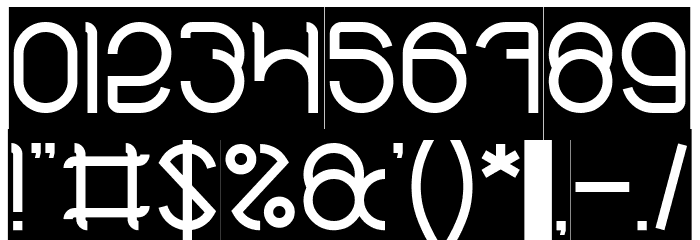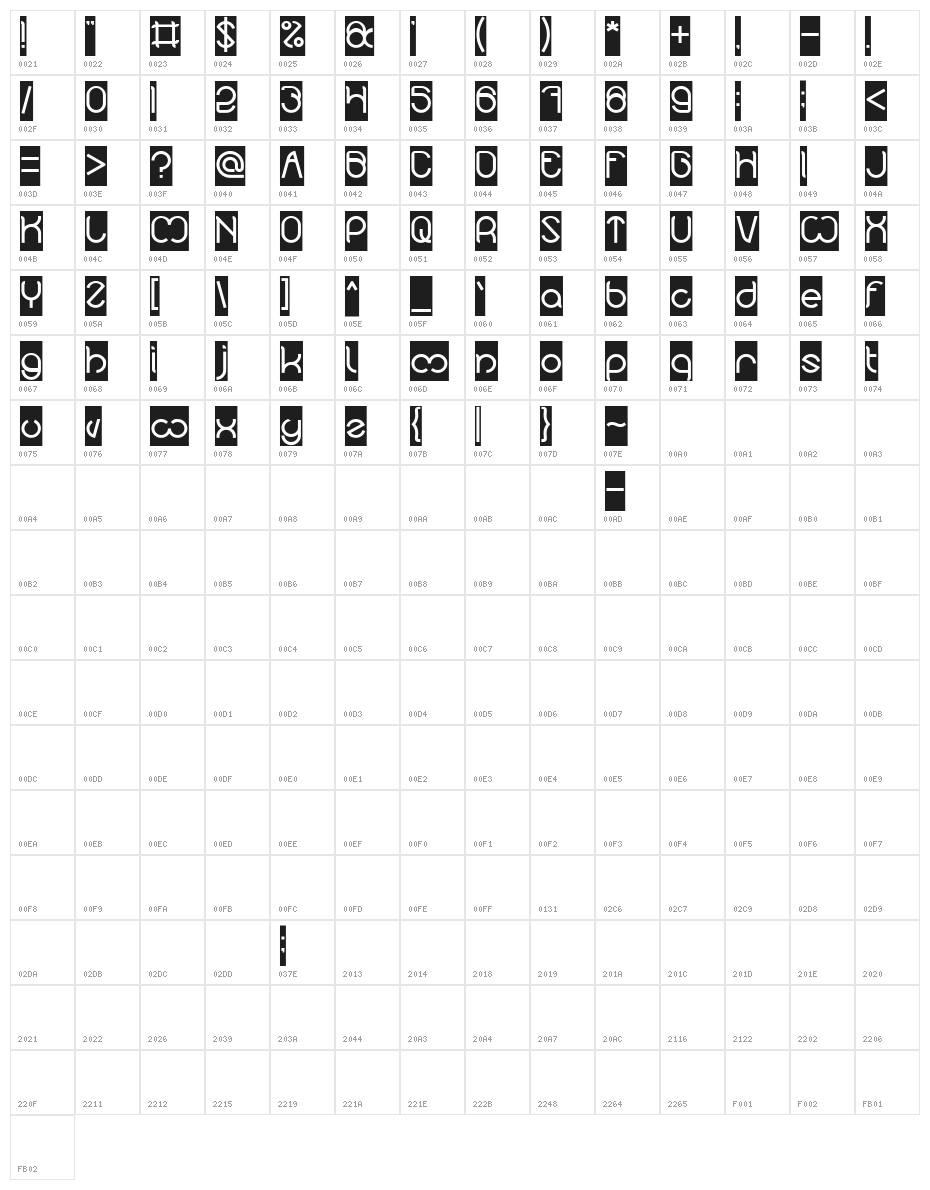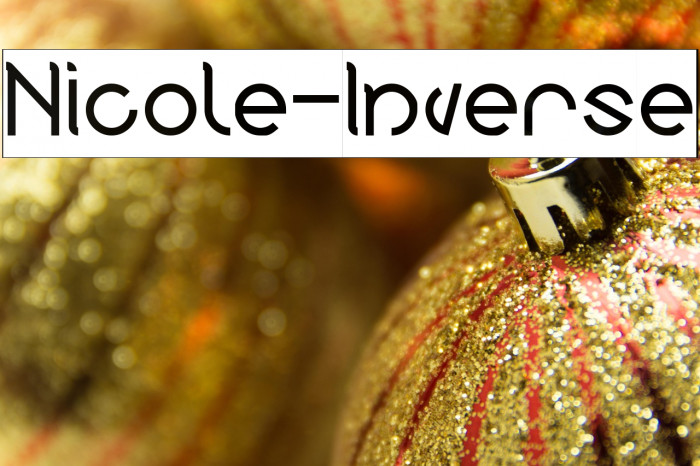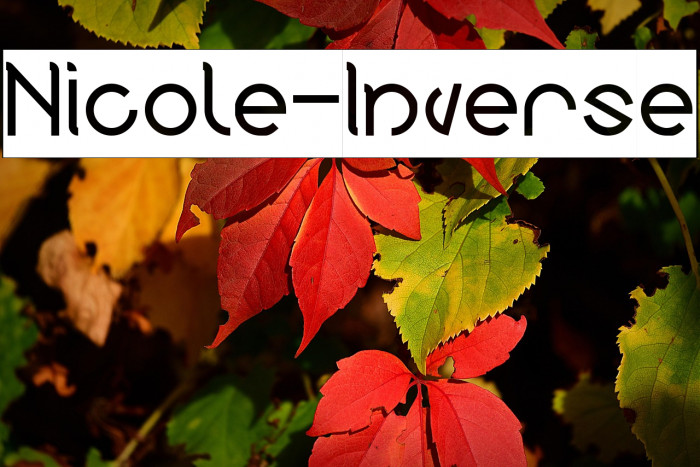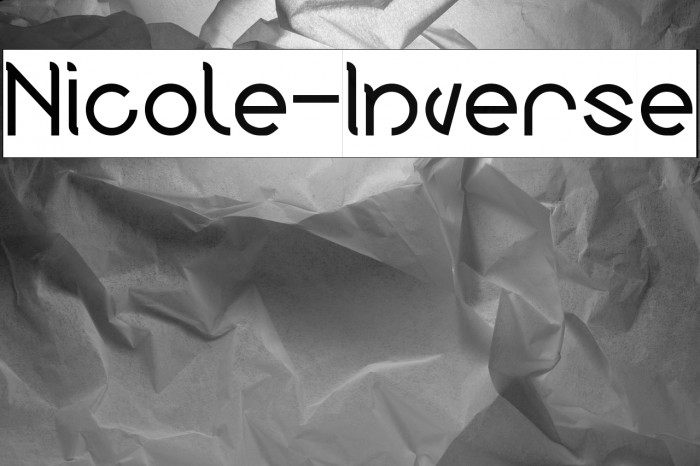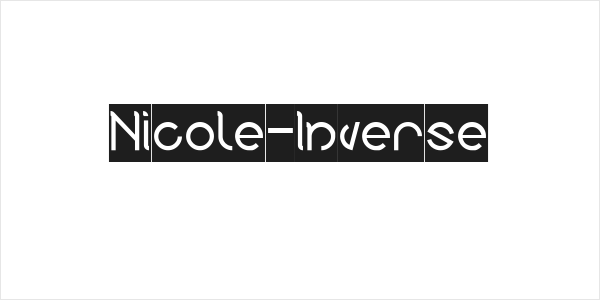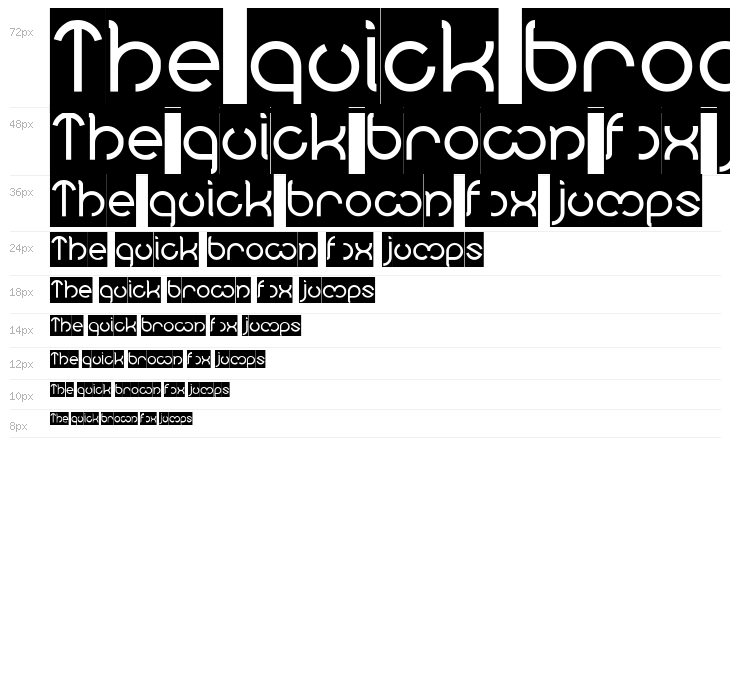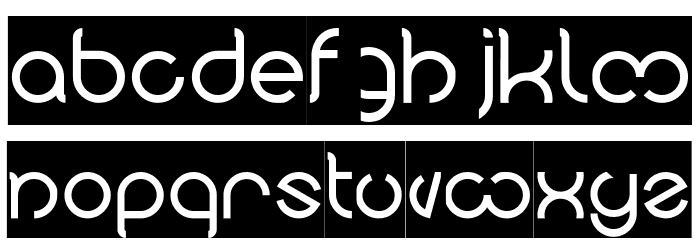
Nicole-Inverse Font
Nicole-Inverse Description
This font features a unique and modern design with a futuristic flair. The characters are crafted with a blend of geometric shapes and smooth curves, creating a distinctive and eye-catching appearance. The uppercase letters exhibit a bold and structured form, while the lowercase letters maintain a consistent style with slightly softer edges. Numbers and special characters are designed to match the overall aesthetic, ensuring a cohesive look across all elements. The font's clean lines and innovative design make it suitable for a variety of creative applications.
| Proposed Projects | Ideal for branding, digital media, posters, and innovative design projects. |